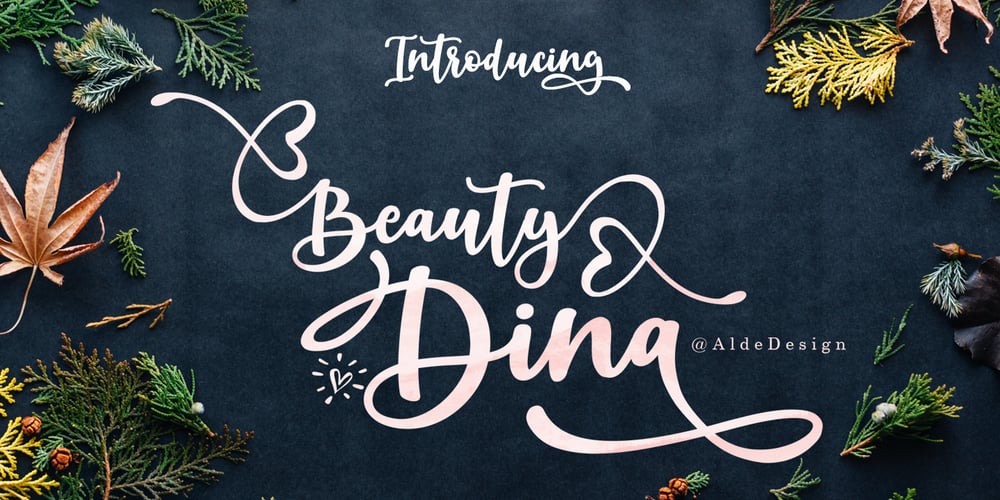
Beauty Dina Font Family was designed by Alde Saputro and published by Aldedesign. Beauty Dina contains 2 styles and family package options. Beauty Dina // Playful Script Font is a stunning font with a stylish and lovely font that features a varying baseline, smooth line, modern, and with a depth of love. For those of you who need a touch of love and modernity for your designs or branding, it can be used for various purposes such as headings, weddings, invitations, signatures, logos, branding, t-shirt, letterhead, signage, labels, news, posters, badges, etc.We have a special font namely “Beauty Dina // Playful Script Font “. The font design looks simple without losing its elegance and warmness.The function of the font is to show that you have a modern spirit to serve high-quality products and services. We design this font with Open Type features to give an artistic touch to it. This font is also applicable for numbers, punctuation, and other languages. It is also a multi-functions font where you can use for a business logo, branding, wedding invitation, and anything you want.We have more great and artistic fonts. Just check my font collection by visiting Our Profile.Then, pick your most favorite font and use it to reach your goals.